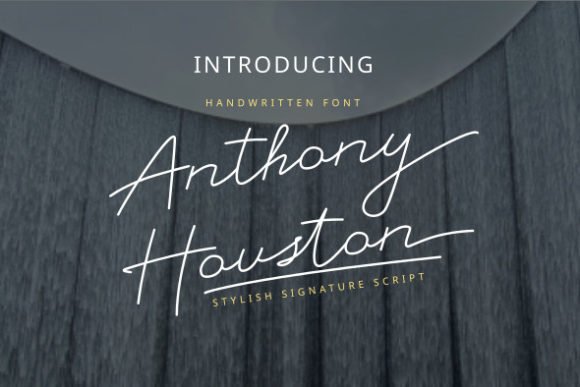
Discover the Timeless Elegance of Anthony Houston Font
Do you remember the moment when you stumbled upon the perfect font for your design project? The one that instantly elevated your entire concept and left you wondering how you ever managed without it? For designers, this feeling is a familiar thrill, and it’s exactly what the Anthony Houston Font promises to deliver.
Anthony Houston is a delicate and sophisticated script font that embodies the essence of modern elegance. Its refined lines and subtle curves make it perfect for creating a wide range of designs, from luxurious logos and branding materials to elegant invitations and stationery. Whether you’re working on a high-end wedding design or a social media campaign, this font is sure to bring a touch of sophistication and class to your work.
Anthony Houston Font Key Features
- Unique Characteristics: Anthony Houston Font features a modern, elegant, and highly legible design, making it ideal for use in logos, branding, and advertising materials.
- Font Style: Anthony Houston Font comes in two styles: Regular and Italic, providing users with flexibility in their design choices.
Designer Review: Anthony Houston Font
As a designer, I was excited to try out the Anthony Houston font. In my opinion, it’s a great choice for certain projects, and I’d like to highlight its strengths and weaknesses.
- Unique Style**: Anthony Houston has a distinctive, hand-drawn feel that sets it apart from more traditional fonts.
- Legibility**: Despite its unique style, the font is surprisingly easy to read, even at smaller sizes.
- Expressiveness**: The font’s fluid lines and curves make it perfect for projects that require a touch of personality and flair.
- Lack of Versatility**: While Anthony Houston is great for certain projects, it may not be the best choice for more formal or corporate designs.
- Difficulty with Large Text**: At larger sizes, the font can start to look a bit rough around the edges, which may not be ideal for headings or titles.
In conclusion, Anthony Houston is a great font for designers who want to add a touch of personality and whimsy to their projects. While it may not be suitable for every design, it’s definitely worth considering for the right project.
Use the Anthony Houston Font to create eye-catching headlines, titles, and headings.
Experiment with different font sizes, colors, and styles to create a unique look.
Combine the Anthony Houston Font with other fonts to create a visually appealing design.
Use the Anthony Houston Font for:
Music-related projects, such as album artwork and concert posters.
Event invitations and promotional materials.
Branding and marketing materials, such as business cards and brochures.
Alternatives to Anthony Houston Font for Designers
The Great Vibes Font is a modern, elegant, and highly legible font perfect for designs that require a touch of sophistication. It’s ideal for use in headings, titles, and body text where a clean and professional look is desired. Great Vibes Font is similar to Anthony Houston Font in its legibility and versatility, but it has a more refined and polished feel.
The Pacifico Font is a beautiful, handwritten font with a relaxed and casual feel. It’s perfect for designs that require a touch of warmth and personality. Pacifico Font is similar to Anthony Houston Font in its ability to add a unique touch to designs, but it has a more laid-back and organic feel.
The Lato Font is a modern sans-serif font with a clean and minimalist design. It’s perfect for designs that require a touch of simplicity and elegance. Lato Font is similar to Anthony Houston Font in its legibility and versatility, but it has a more modern and sleek feel.